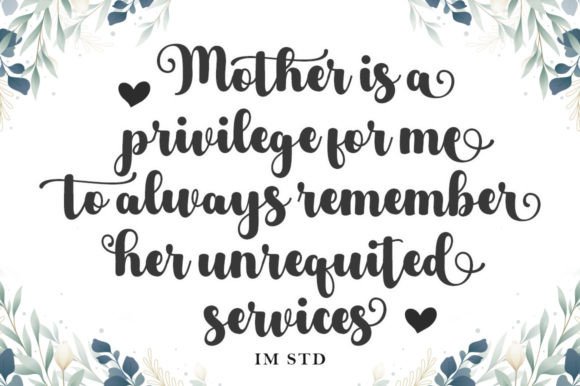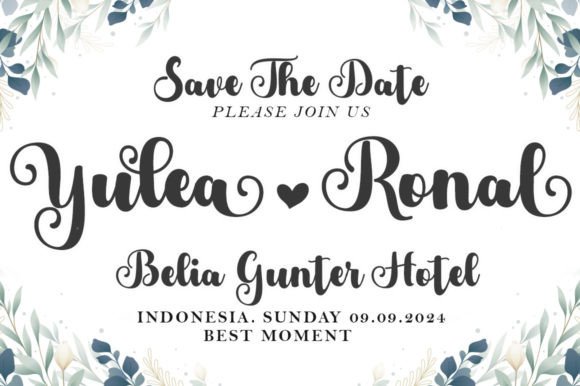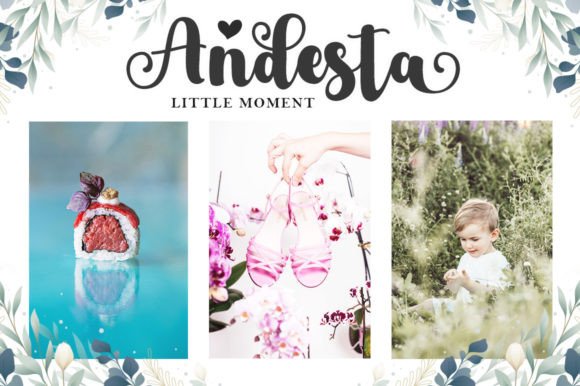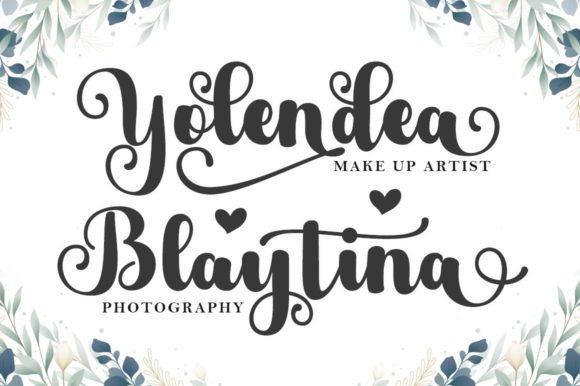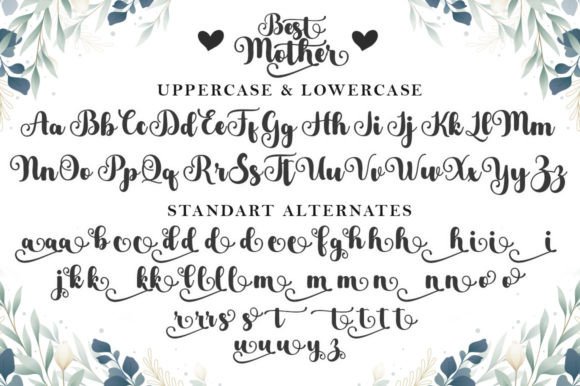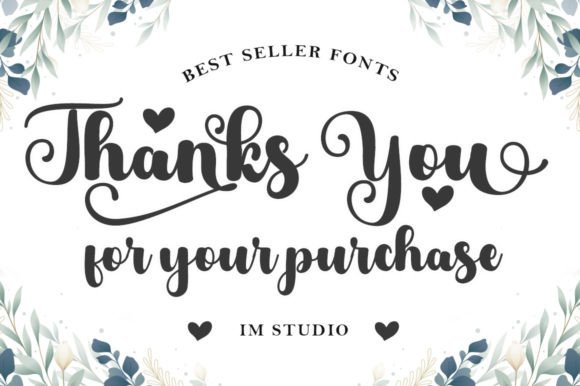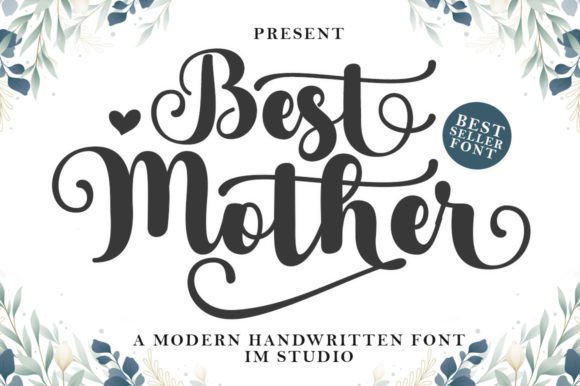
Discover the Elegance of Best Mother Font: Elevate Your Designs with Style
In the world of typography, the right font can make all the difference in transforming a design from ordinary to extraordinary. For those seeking a touch of elegance and sophistication, the Best Mother font stands out as an exceptional choice. This stylish and incredibly elegant handwritten font is perfect for a variety of design projects, including wedding invitations, thank you cards, quotes, greeting cards, logos, business cards, and more. In this article, we’ll delve into the features and benefits of the Best Mother font and explore how it can elevate your designs.
Handwritten fonts have a unique charm that can add a personal touch to any design. They evoke a sense of warmth, intimacy, and authenticity, making them ideal for projects where you want to connect with your audience on a more emotional level. The Best Mother font is a beautiful example of a handwritten font that exudes elegance and sophistication. Its fluid strokes and graceful letterforms make it a versatile choice for a wide range of design applications.
Key Features of Best Mother Font
So, what makes the Best Mother font so special? Here are some of its key features:
- Stylish and Elegant: The Best Mother font boasts a stylish and elegant appearance that is sure to impress. Its refined letterforms and flowing strokes give it a sophisticated look that’s perfect for high-end designs.
- Handwritten Touch: This font adds a personal touch to your designs, making them more relatable and engaging. Whether you’re creating wedding invitations or business cards, the Best Mother font can help you achieve a unique and distinctive look.
- PUA Encoded: The Best Mother font is PUA (Private Use Area) encoded, which means you can access all the glyphs and alternates with ease. This feature makes it easy to customize your text and experiment with different styles.
- Versatile: This font is suitable for a wide range of design projects, from wedding and event designs to branding and marketing materials. Its versatility makes it an excellent addition to any designer’s font library.
Use Cases for Best Mother Font
The Best Mother font is incredibly versatile, and its uses are only limited by your imagination. Here are some popular use cases for this beautiful font:
- Wedding Invitations: Add a touch of elegance to your wedding invitations with the Best Mother font. Its sophisticated look makes it perfect for formal wedding designs.
- Thank You Cards: Express your gratitude in style with beautifully designed thank you cards featuring the Best Mother font.
- Quotes and Greeting Cards: Use this font to create stunning quotes and greeting cards that are sure to leave a lasting impression.
- Logos and Branding: The Best Mother font can also be used to create elegant logos and branding materials that reflect your brand’s personality and values.
- Business Cards: Stand out from the crowd with professionally designed business cards featuring the Best Mother font.
Tips for Using Best Mother Font
To get the most out of the Best Mother font, here are some tips to keep in mind:
- Pair it with Other Fonts: Experiment with pairing the Best Mother font with other fonts to create a unique and visually appealing design.
- Adjust Font Sizes: Play around with different font sizes to create visual hierarchy and emphasize important information.
- Use it for Headings and Titles: The Best Mother font is perfect for headings and titles, where its elegant appearance can make a significant impact.
| Font Name | Best Mother Font |
| Author | IM Studio |
In conclusion, the Best Mother font is an exceptional choice for designers and crafters looking to add a touch of elegance and sophistication to their designs. Its stylish and elegant appearance, combined with its versatility and PUA encoding, make it a valuable addition to any font library. Whether you’re creating wedding invitations, business cards, or branding materials, the Best Mother font is sure to elevate your designs and leave a lasting impression.